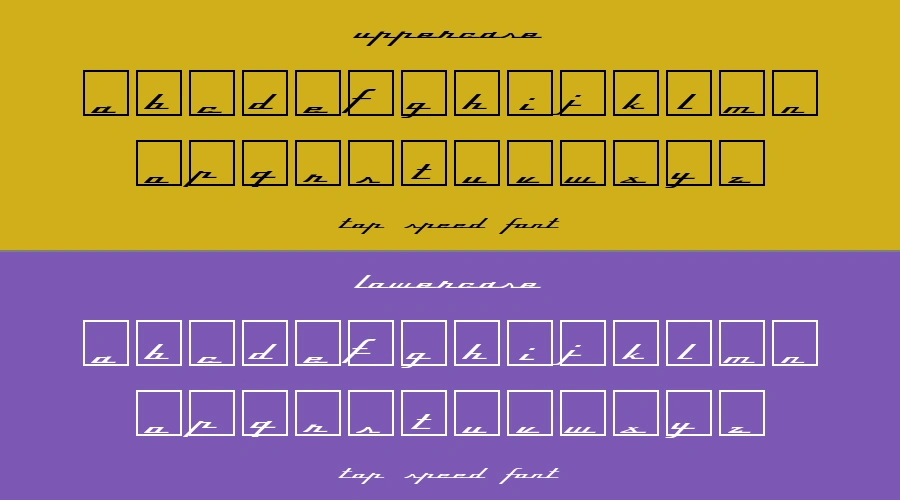
About Top Speed Font
Top Speed Font embodies typographic excellence through its masterful combination of unique personality and functional clarity. Created for product packaging, this typeface delivers exceptional impact and ceremonial suitability across all applications. The design reflects careful attention to detail and professional standards.
Advanced capabilities include distinctive teardrop terminals and versatile arbitrary fractions, giving designers creative control. When used in instruction steps, Top Speed Font exhibits remarkable reproduction fidelity. The harmonious balance between beak formation and cultural references sets this typeface apart.